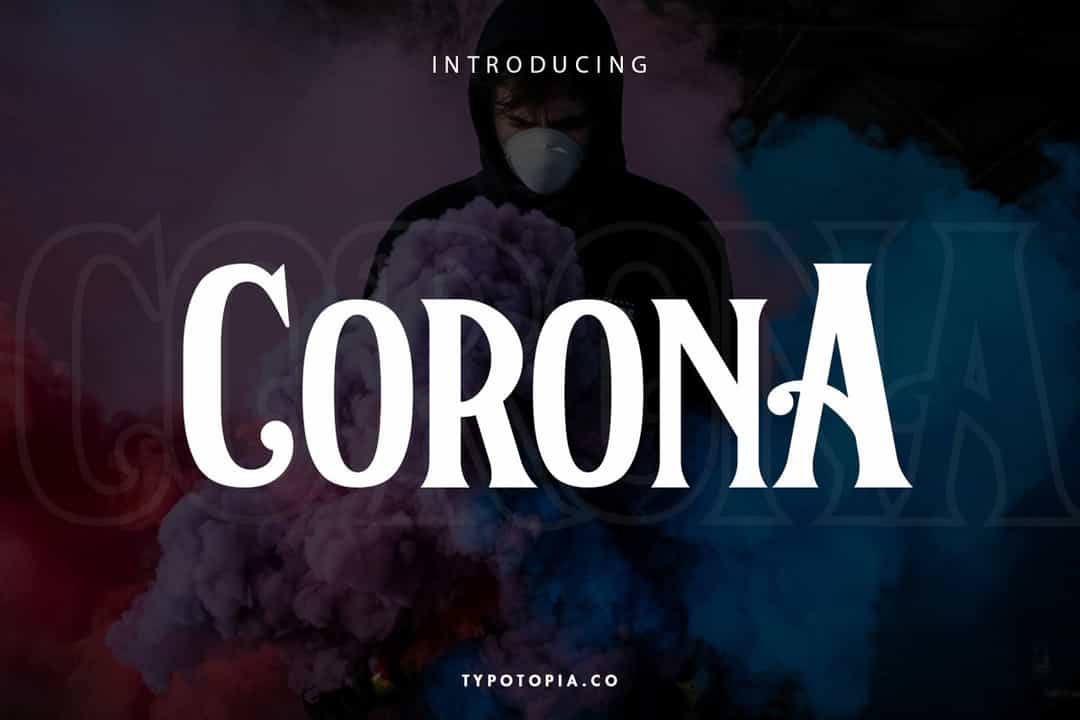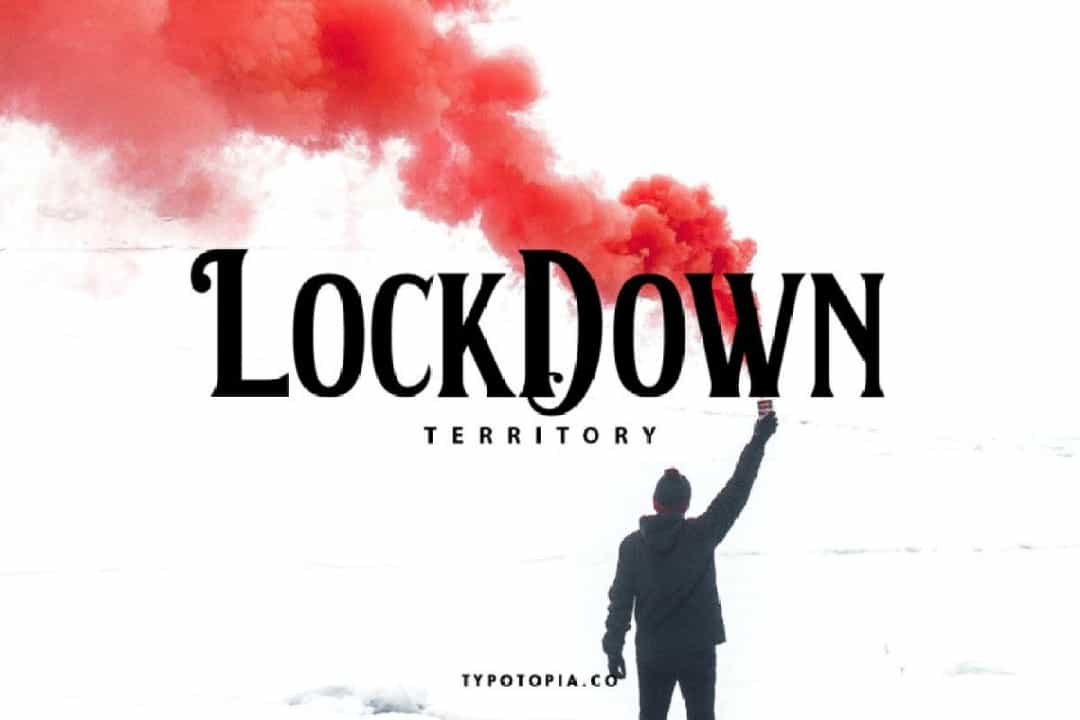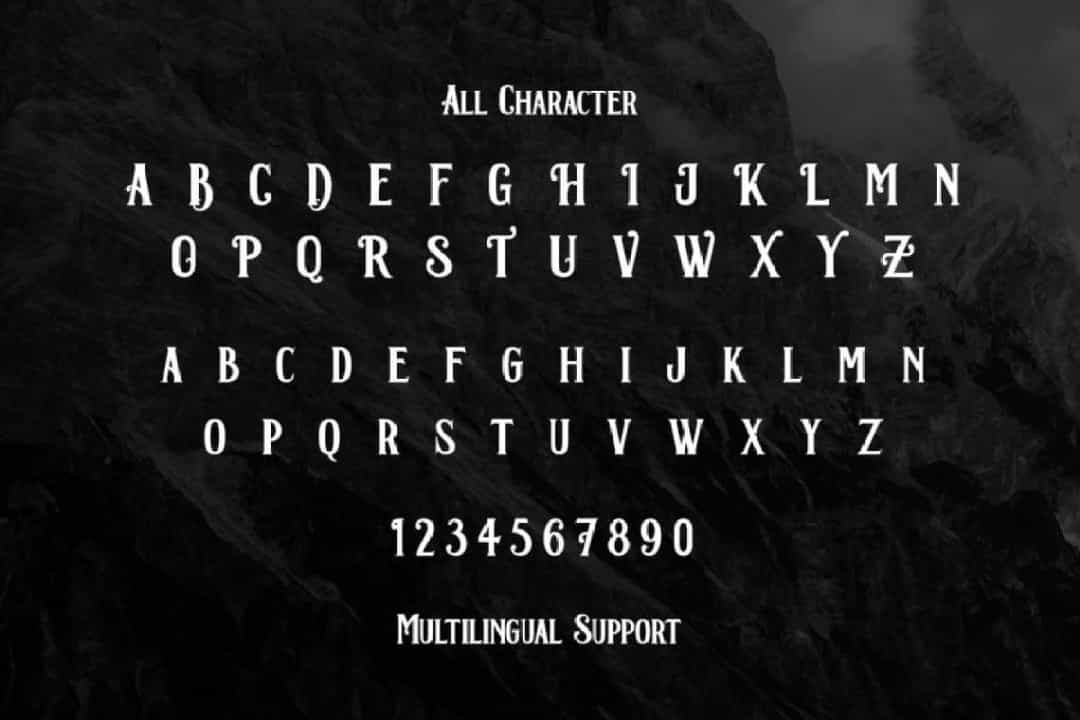
Discover Corona Serif Display Font, part of the Serif Display Basic collection—a versatile and unique font perfect for adding a personal touch to your projects. Download it for free and enjoy crafting designs with style, from invitations to social media posts. This font is available exclusively for personal use, giving you the freedom to create without limits. Unlock your creativity with Corona Serif Display Font today!
Corona is a very stylish and beautiful display font that aims at being used in display purposes that require a lovely look. Based on letters of the past but with noticeable Classic and Medieval influences. Corona is the perfect font for many uses and is perfect for use in a headline, logotype on garments, in invitations, for branding, advertising and many other uses.